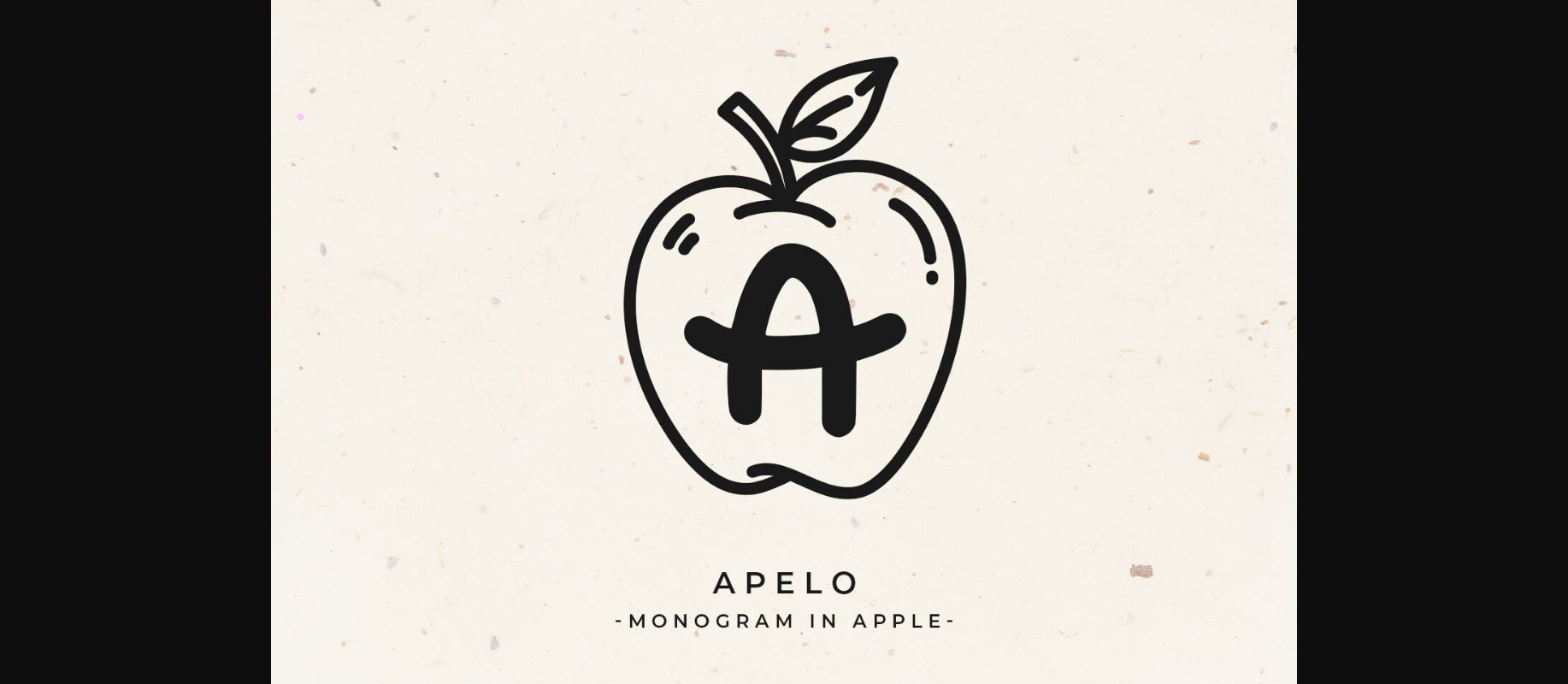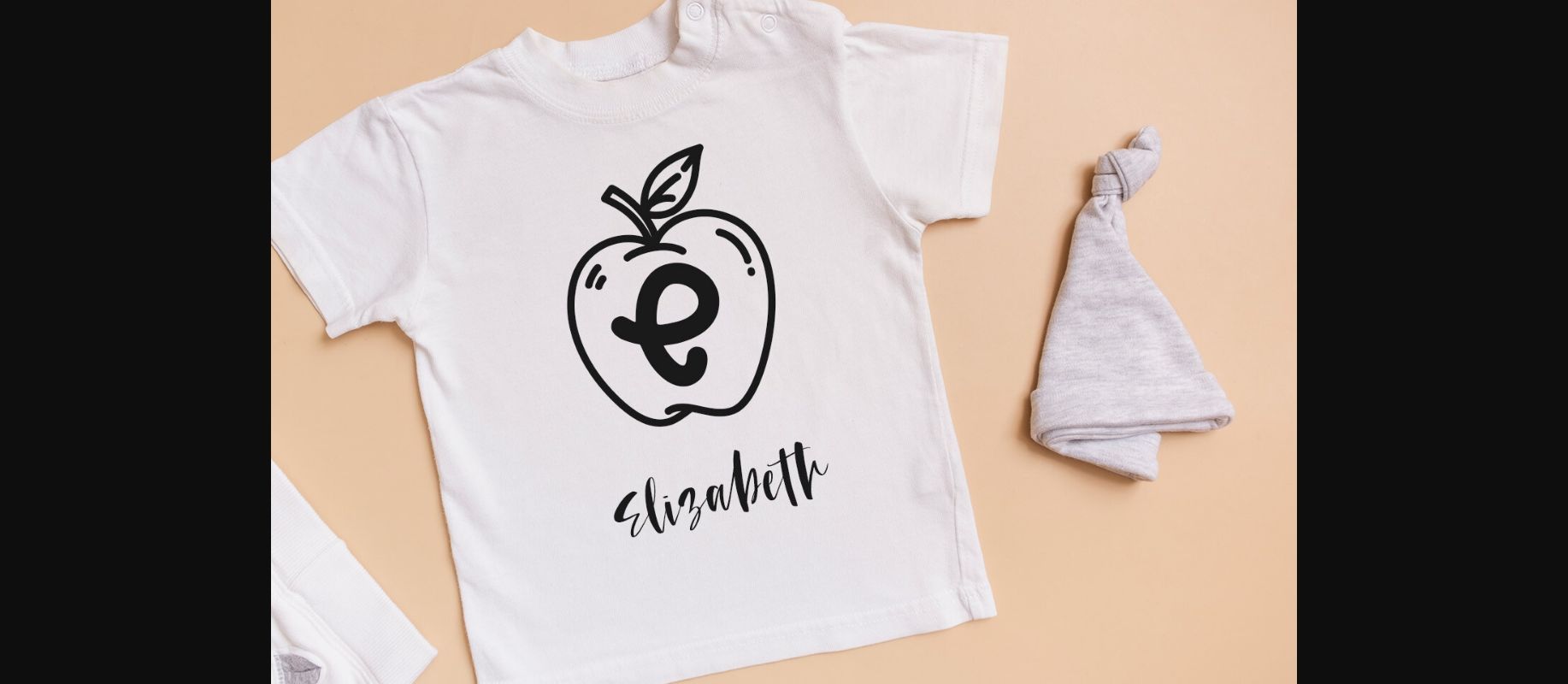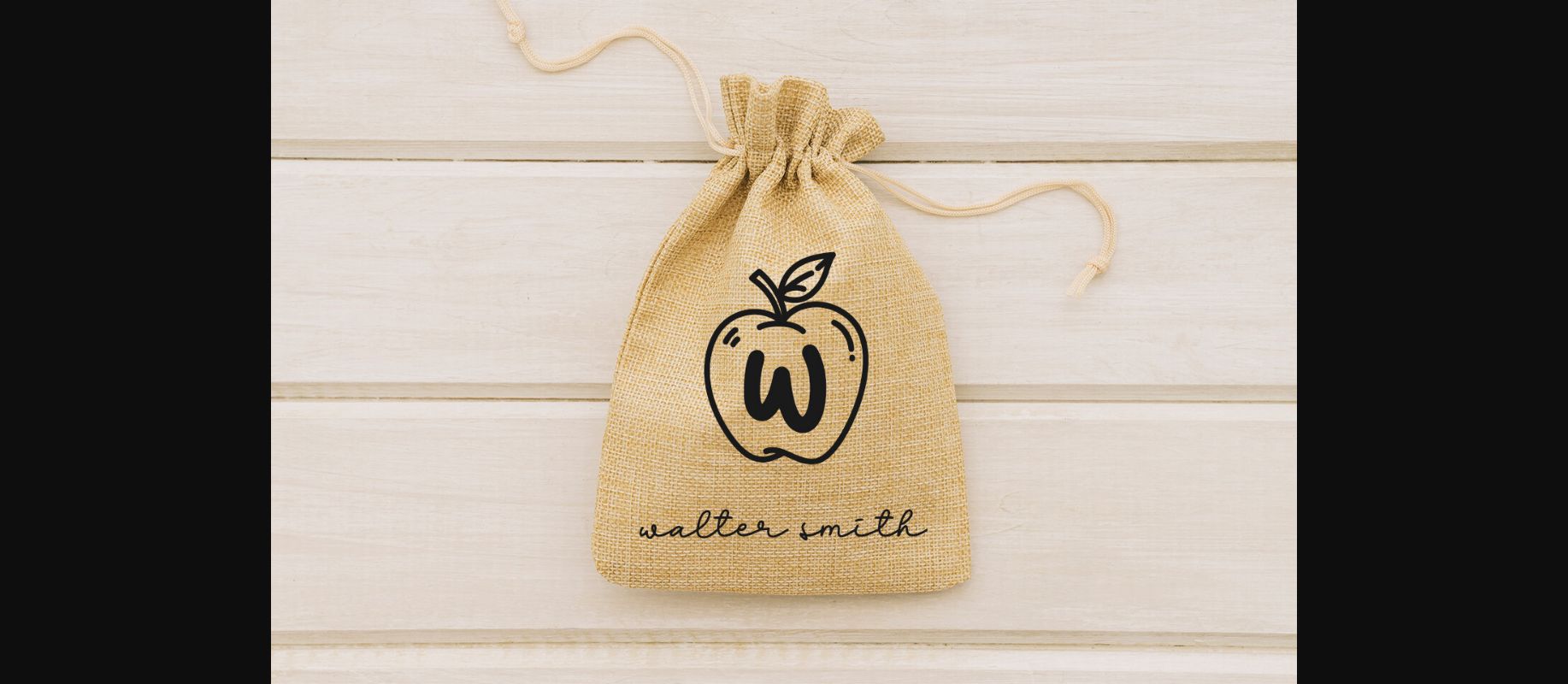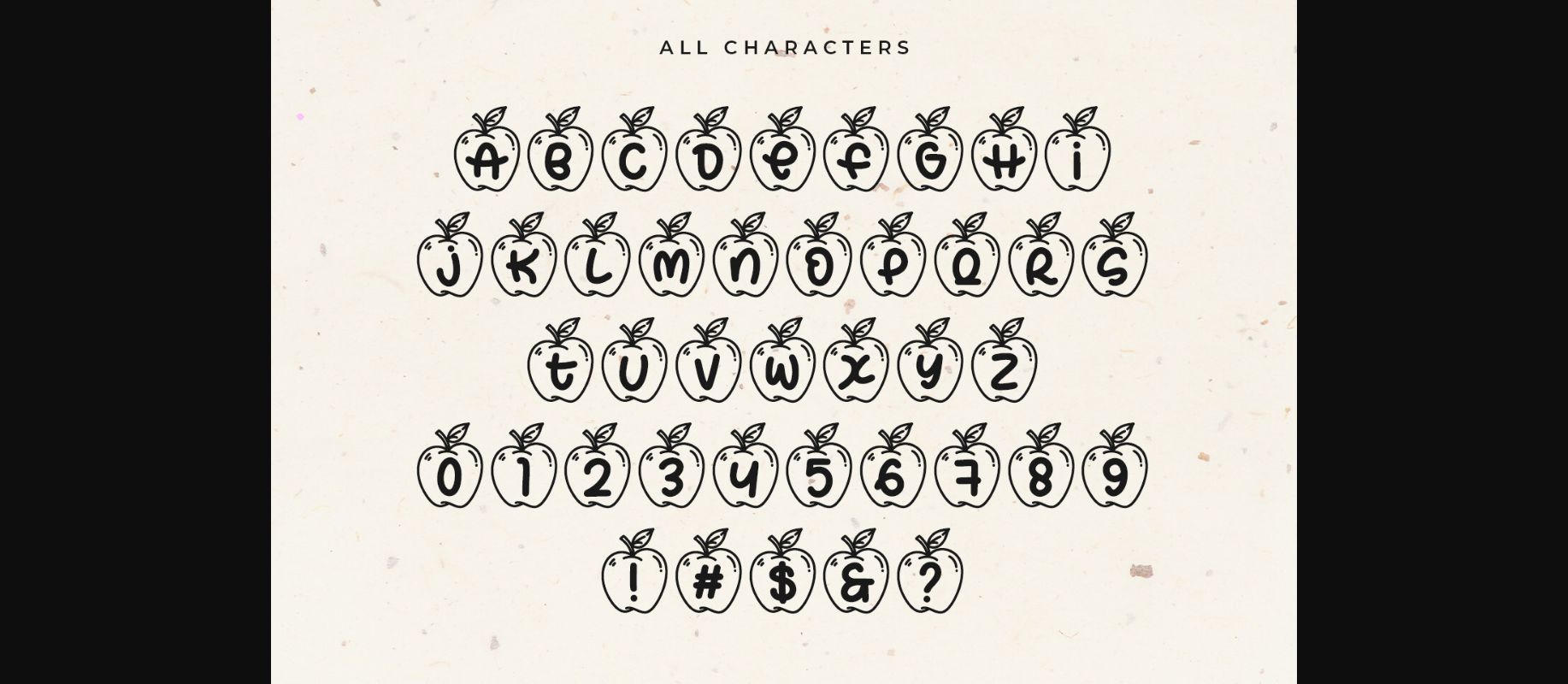
About Apelo Font
APELO
– monogram inside an apple –
APELO is a cute decorative font.
It is great for branding, logos, t-shirt designs, tote bag designs, cards, banners, social media, and more.